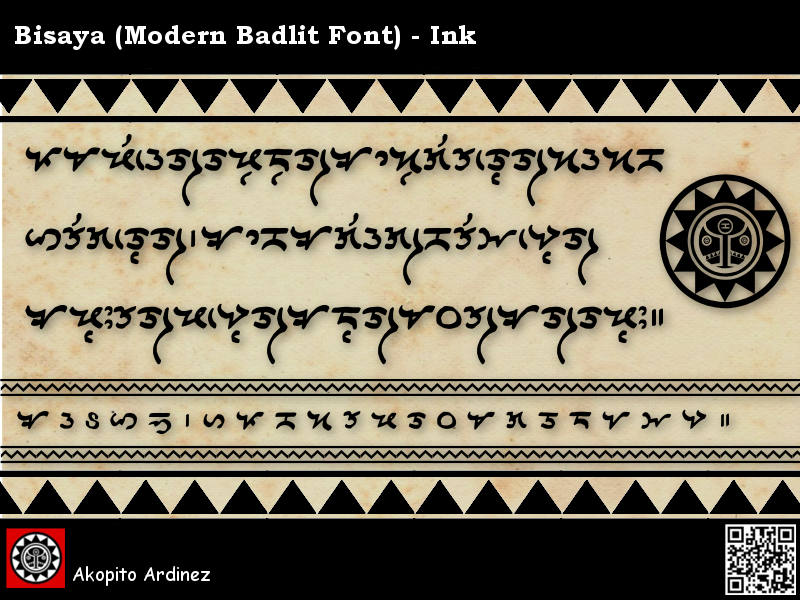
Bisaya (Modern Badlit Font) - ink style
Translation:
Pamatíun natu run ang sugilánon
sa usa ka Iligánon.
English Translation:
Let us listen to the story of one Iliganon
I added new Tuning sound marks or (Paghuni sa pantingog kudlit) this are,
- long sound vowel (Taas pantingog),
- a glottal stop (Balî pantingog),
- a “ya sound” (Ya kudlit)
“which change any consonant inherent vowel to “ya” example: Dya, Sya etc.”
- a "ang sound" (ang kudlit)
"which adds any consonant inherent vowel to "ang sound" example: Kang, Dang etc."
which I based my modern kudlit/mark on the Kawi script diacritical mark,
The design of the symbols are based on Visayan Tattoo and other austronesian elements, which represent both Upperworld (curvature characters) and Underworld (V shape characters) elements according to Austronesian beliefs (reference).